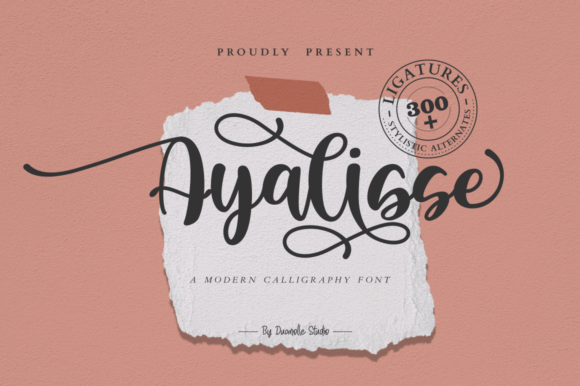
Be the envy of all your font-loving friends with Ayalisse, the most gorgeous new font that perfectly fuses modern calligraphy with timeless elegance. This exquisite font will leave you utterly breathless and yearning for more.
Unleash your creativity with Ayalisse's mesmerizing and captivating strokes. Let it be your secret weapon for crafting breathtaking branding, wedding invitations that will ignite love at first sight, and logos that exude sophistication. Elevate your handmade projects, packaging, and fashion designs to dizzying heights of beauty with Ayalisse's opulent presence. Your every creative vision will be met with grace and finesse.
Step into a world of boundless possibilities with Ayalisse's wealth of alternative letter choices. Mix and match with ease, experimenting with different combinations until you find the perfect harmony for your project. Every letter is a work of art, waiting to be discovered and woven into your creative tapestry.
Ayalisse's PUA encoding is your gateway to a world of accessible glyphs and swashes. With this magical tool, you can effortlessly access the full potential of Ayalisse's enchanting features. Unleash your imagination and let your designs dance with joy and elegance.
Ayalisse is not just a font; it's an experience, a journey of creativity that will transform your projects into masterpieces. Don't let this opportunity pass you by. Embrace Ayalisse today, and let your creative spirit soar.